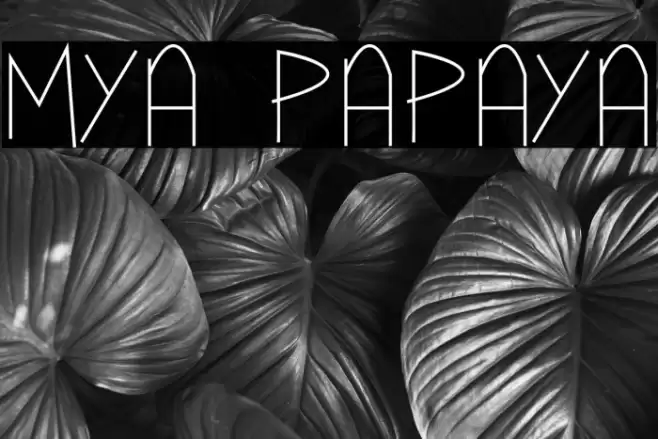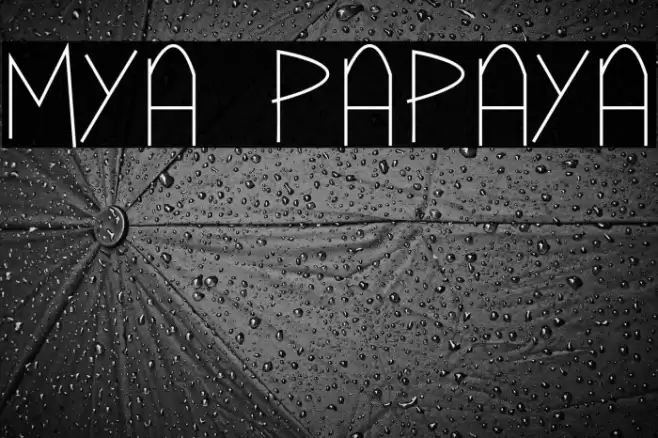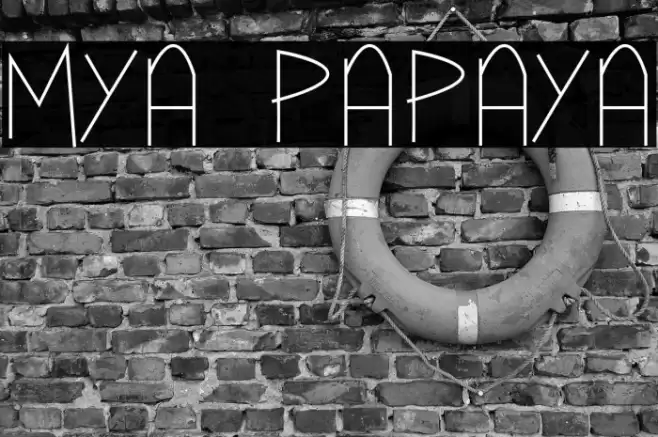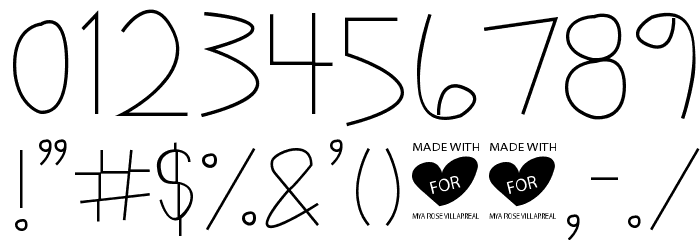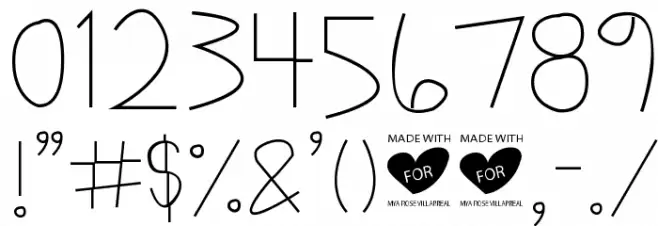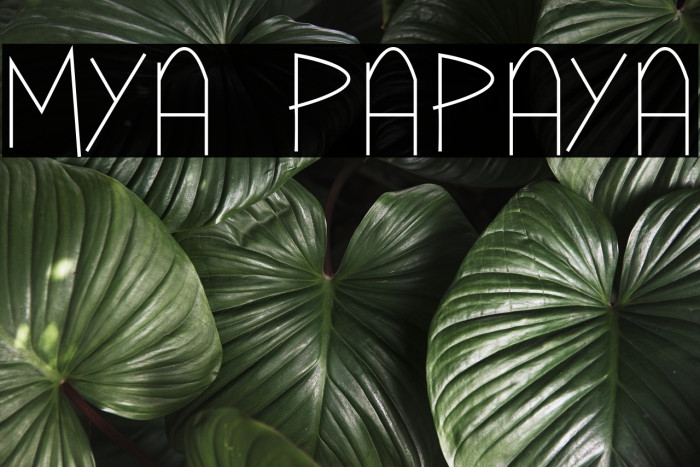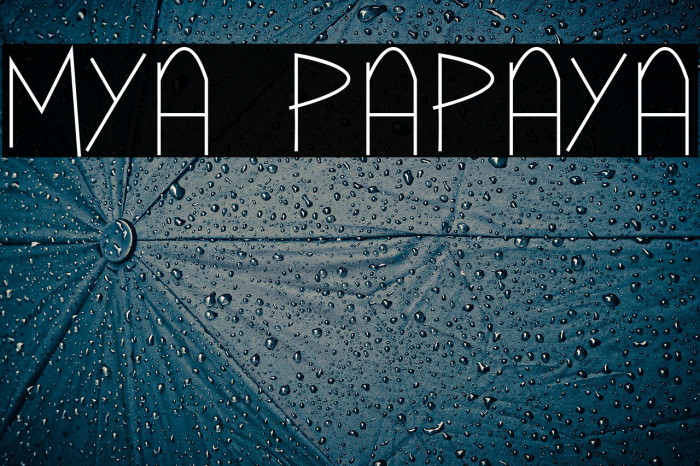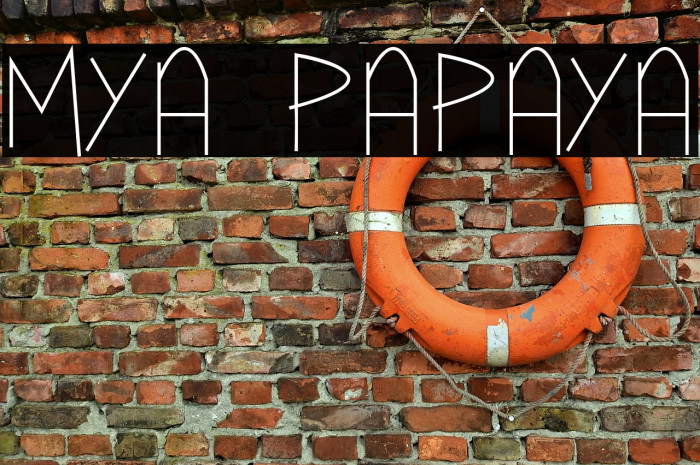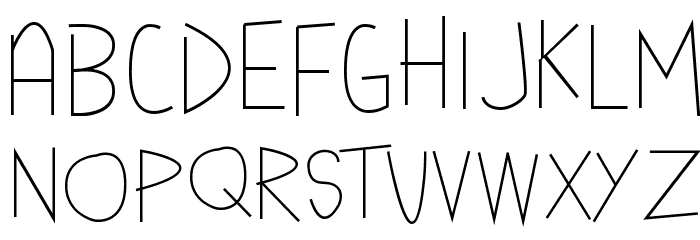
Mya Papaya Font
Mya Papaya Description
This font features a playful and whimsical design with tall, narrow characters. The strokes are consistent in width, giving it a clean and modern appearance. The uppercase and lowercase letters maintain a uniform height, contributing to a cohesive look. The numerals are distinct and easy to read, while the special characters add a touch of creativity with their unique shapes. Overall, the font exudes a friendly and approachable vibe, making it suitable for various design projects that require a lighthearted touch.
A playful, modern font with tall, narrow characters and consistent stroke width from Uncategorized fonts.
- Proposed Projects: Ideal for children's books, greeting cards, playful branding, and casual invitations.
- Use Case: Headlines, Logos, Invitations